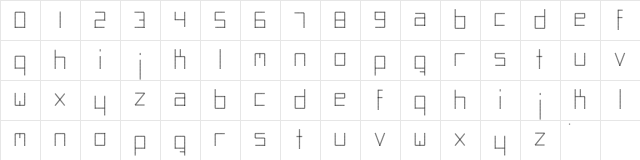
Abstracta Medium Free Font
Abstracta Medium
Abstracta Family
Design Context for Abstracta
Abstracta is a composed and adaptable typeface that performs quietly and consistently across a wide range of design contexts.